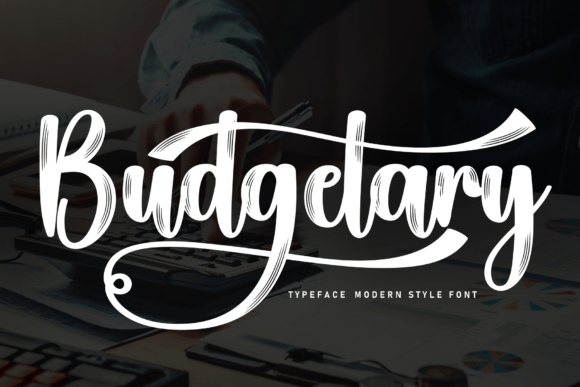
Unleash your creativity with Budgetary, the captivating script font that transforms your designs into visual masterpieces. Every letter, meticulously handcrafted, carries a unique charm, adding a touch of elegance and sophistication to your projects.
With Budgetary, you'll discover a symphony of beauty and versatility. This exceptional font family is perfectly suited for crafting eye-catching logos, branding that commands attention, and quotes that resonate deeply. Let your imagination soar as you harness the power of Budgetary to create designs that leave a lasting impression.
Budgetary excels in the realm of display text, where its enchanting characters dance across the screen, captivating your audience. Its graceful lines and elegant curves command attention, making your messages impossible to ignore. Whether you're designing for a website, a social media campaign, or a print project, Budgetary will elevate your work to new heights of visual appeal.
Dive into the world of Budgetary and experience the magic of its timeless beauty. Let your designs blossom with a touch of artistry and grace. Embrace the endless possibilities that await you with this remarkable font family.